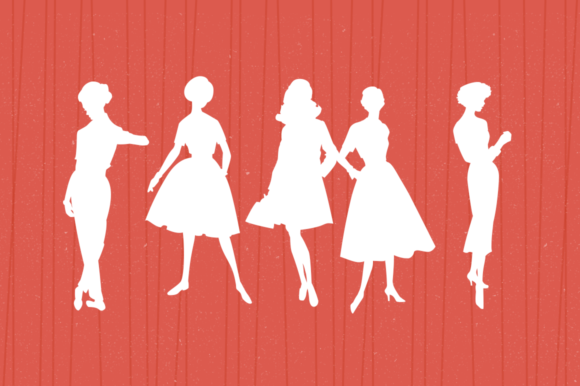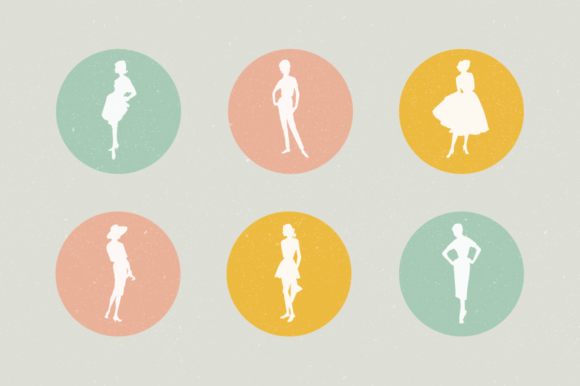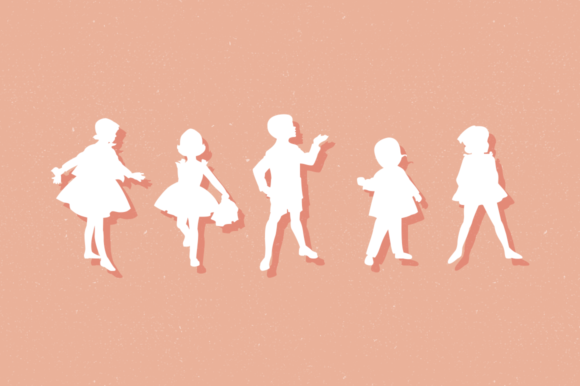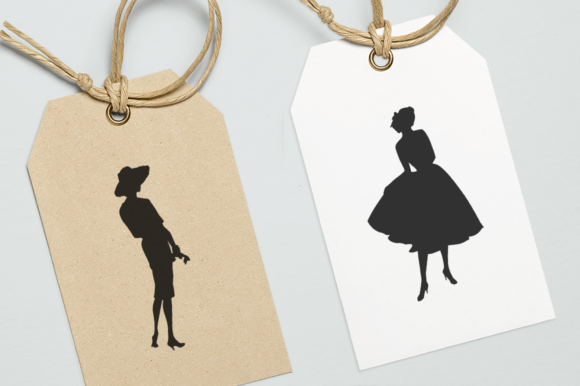
Sewing Patterns 3 Font
The Sewing Patterns collection is a truly unique vintage dingbat set that captures the essence of the 1950s and 1960s fashion era. With its meticulously designed symbols, this collection offers an array of amazing A-line dresses, pencil skirts, and other iconic styles from that time period.
If you’re a fan of vintage fashion or if you want to add a touch of retro elegance to your designs, the Sewing Patterns dingbat collection is a treasure trove of inspiration. Each symbol within the collection represents a specific garment or style, allowing you to incorporate the timeless aesthetics of the 1950s and 1960s into your projects.
Imagine using these dingbats to create unique and eye-catching illustrations for fashion blogs, clothing catalogs, or even personal sewing projects. The Sewing Patterns collection allows you to showcase the iconic silhouettes of A-line dresses and pencil skirts that were the epitome of elegance during that era. These symbols can serve as visual references, guiding your readers or customers in recreating those vintage looks or inspiring them to embrace the charm of retro fashion.
The versatility of the Sewing Patterns collection extends beyond fashion-related projects. These dingbats can be used in various design contexts, such as creating vintage-inspired logos, embellishing invitations for themed events, or adding a nostalgic touch to editorial layouts. The symbols provide an instant connection to the glamour and sophistication of the 1950s and 1960s, making them ideal for capturing the attention and interest of your target audience.
Whether you’re a graphic designer, fashion enthusiast, or someone with a passion for retro aesthetics, the Sewing Patterns dingbat collection offers endless possibilities for creative exploration. These symbols allow you to embrace the elegance and style of the past, infusing your designs with a sense of nostalgia and timeless beauty.
In summary, the Sewing Patterns collection is a unique vintage dingbat set that celebrates the iconic fashion styles of the 1950s and 1960s. From A-line dresses to pencil skirts and other beloved designs, these symbols allow you to incorporate the charm of retro fashion into your projects. Whether you’re designing for fashion-related endeavors or simply want to evoke a sense of vintage elegance, the Sewing Patterns dingbats are a perfect choice to add a touch of nostalgia and sophistication to your designs.